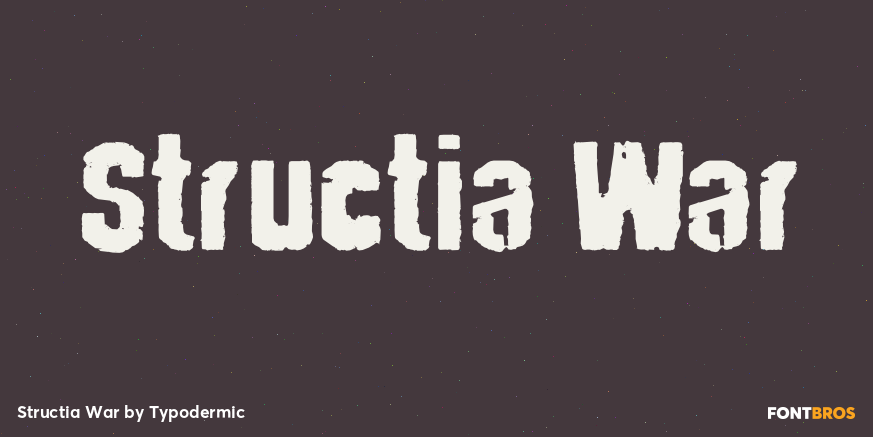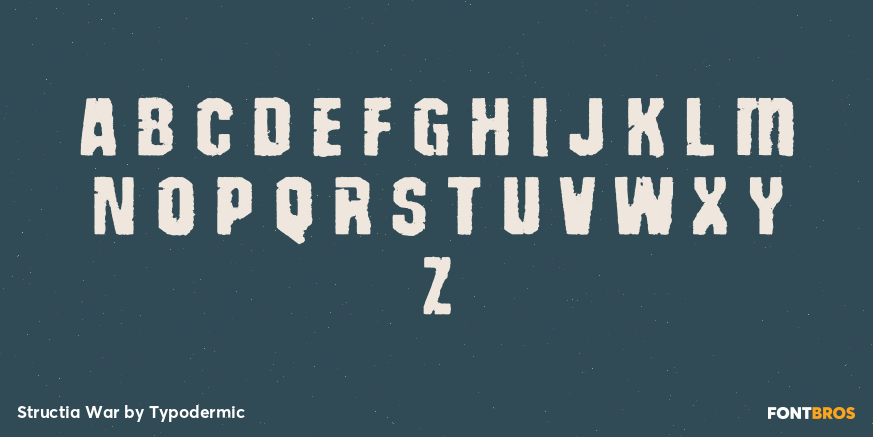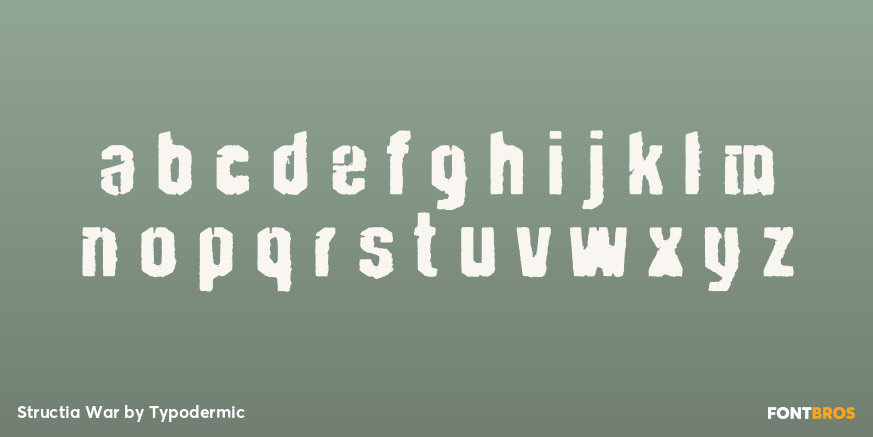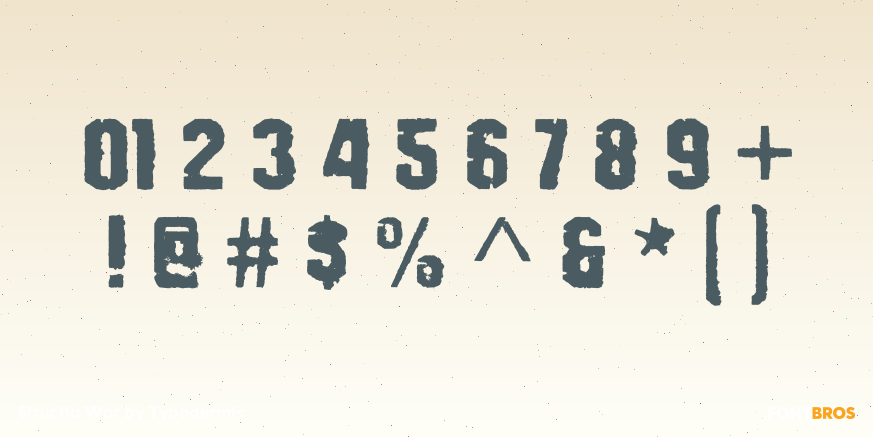
Structia War
Structia War takes the family's angular mechanical structure and subjects it to visible abrasion. Ragged edges and broken areas give the narrow forms a battered surface, shifting Structia from clean engineering toward equipment that has been used hard rather than adding a generic decorative texture.
Use Structia War for rally-raid and motocross graphics, off-road equipment, combat-sports promotions, rugged tools, demolition machinery, fight-night campaigns, and vehicle-combat games. Its distress is clearest in short display text at medium and large sizes. Pair it with Structia Regular for clean supporting information or Structia Panel when the same identity needs a more precise, engineered tier.